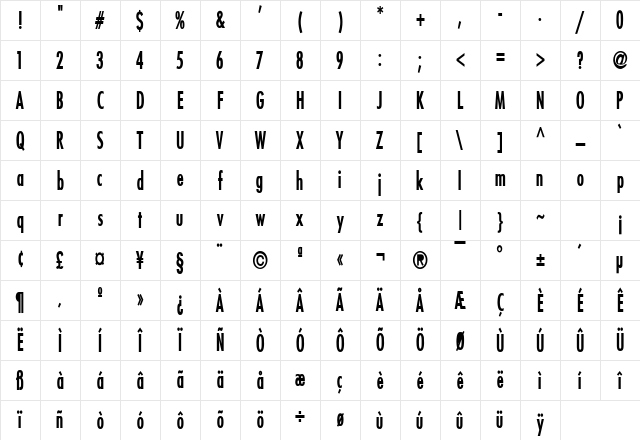
Fuji Thin Bold
Fuji Thin Bold Family
Fuji Thin Bold
Design Context for Fuji Thin
Fuji Thin is a composed and adaptable typeface that performs quietly and consistently across a wide range of design contexts. Its bold stroke weight gives it real presence on the page.